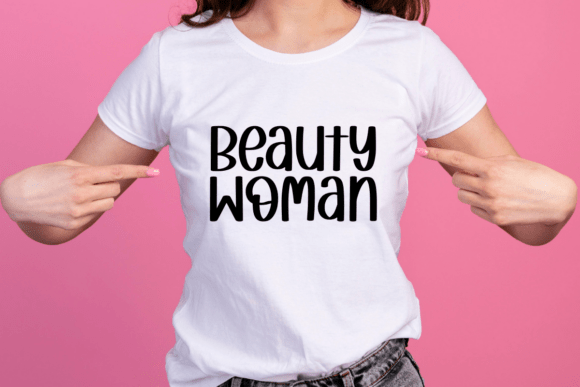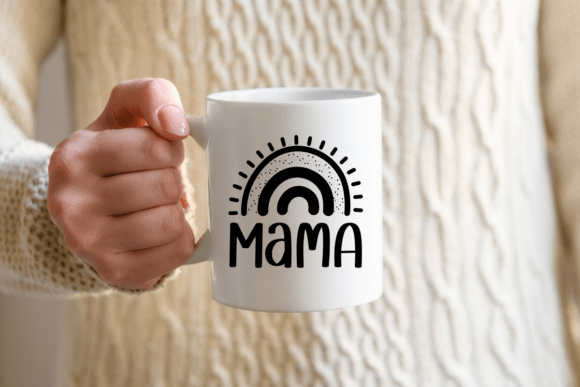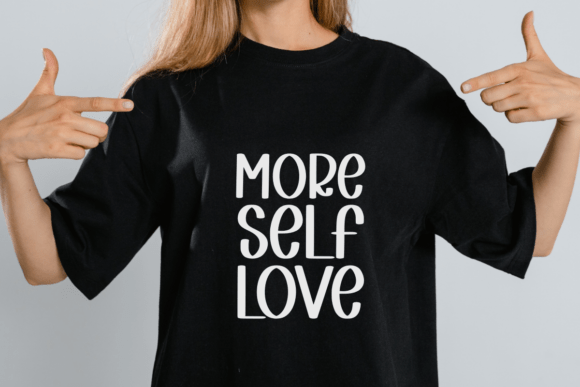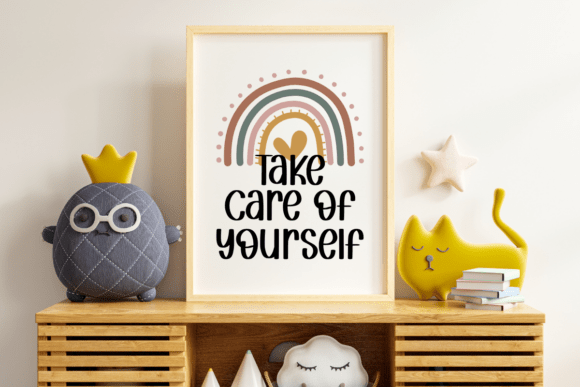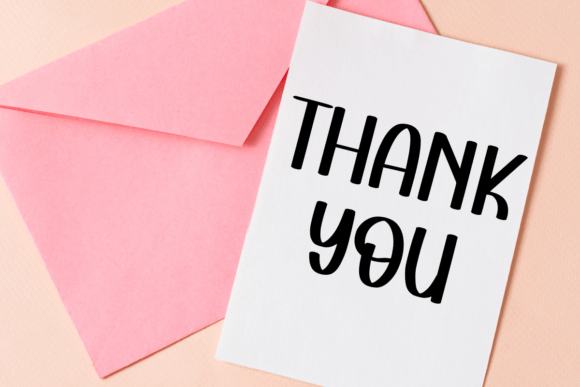
Dreaming Rainbow Font: Adding a Splash of Vibrancy to Your Designs
Are you tired of using the same old fonts in your designs? Look no further than the Dreaming Rainbow Font, a whimsical sans-serif typeface that’s sure to add a touch of playfulness to any project. With its bold and buoyant style, this font is perfectly suited for a wide range of applications, from t-shirt designs and motivational quotes to planners, interior design kits, and teaching supplies.
The Versatility of Dreaming Rainbow
One of the standout features of the Dreaming Rainbow Font is its versatility. This font can be used in a variety of contexts, from digital designs to print materials. Its effervescent charm makes it perfect for adding a pop of personality to a wide range of products, including:
- T-shirts: Add a fun and playful touch to your t-shirt designs with the Dreaming Rainbow Font.
- Mugs: Enliven a humble mug with a quote or phrase in this vibrant font.
- Tote bags: Add some personality to your tote bags with this delightful font.
- Notepads: Lend some flair to your notepads and journals with the Dreaming Rainbow Font.
- Stickers: Spruce up your stickers with a playful phrase or word in this font.
- Labels: Jazz up your labels with a bold and colorful font that’s sure to grab attention.
Why Designers and Crafters Love Dreaming Rainbow
So why do designers and crafters love the Dreaming Rainbow Font? For starters, its bold and buoyant style makes it perfect for creating eye-catching designs that are sure to stand out. Additionally, its whimsical nature adds a touch of playfulness to any project, making it perfect for designs that need a bit of personality.
Tips for Using Dreaming Rainbow in Your Designs
Here are a few tips for using the Dreaming Rainbow Font in your designs:
- Use it sparingly: While the Dreaming Rainbow Font is certainly eye-catching, it can be overwhelming if used too much. Try using it as an accent font to add a pop of personality to your designs.
- Experiment with colors: The Dreaming Rainbow Font looks great in a variety of colors, so don’t be afraid to experiment and find the perfect hue for your design.
- Pair it with other fonts: The Dreaming Rainbow Font pairs well with a variety of other fonts, so try combining it with a more traditional font for a unique look.
In conclusion, the Dreaming Rainbow Font is a versatile and whimsical typeface that’s perfect for adding a touch of playfulness to any design. With its bold and buoyant style, it’s sure to grab attention and add a pop of personality to a wide range of products. Whether you’re a designer, crafter, or simply someone who loves to create, the Dreaming Rainbow Font is a delightful addition to your creative toolkit.